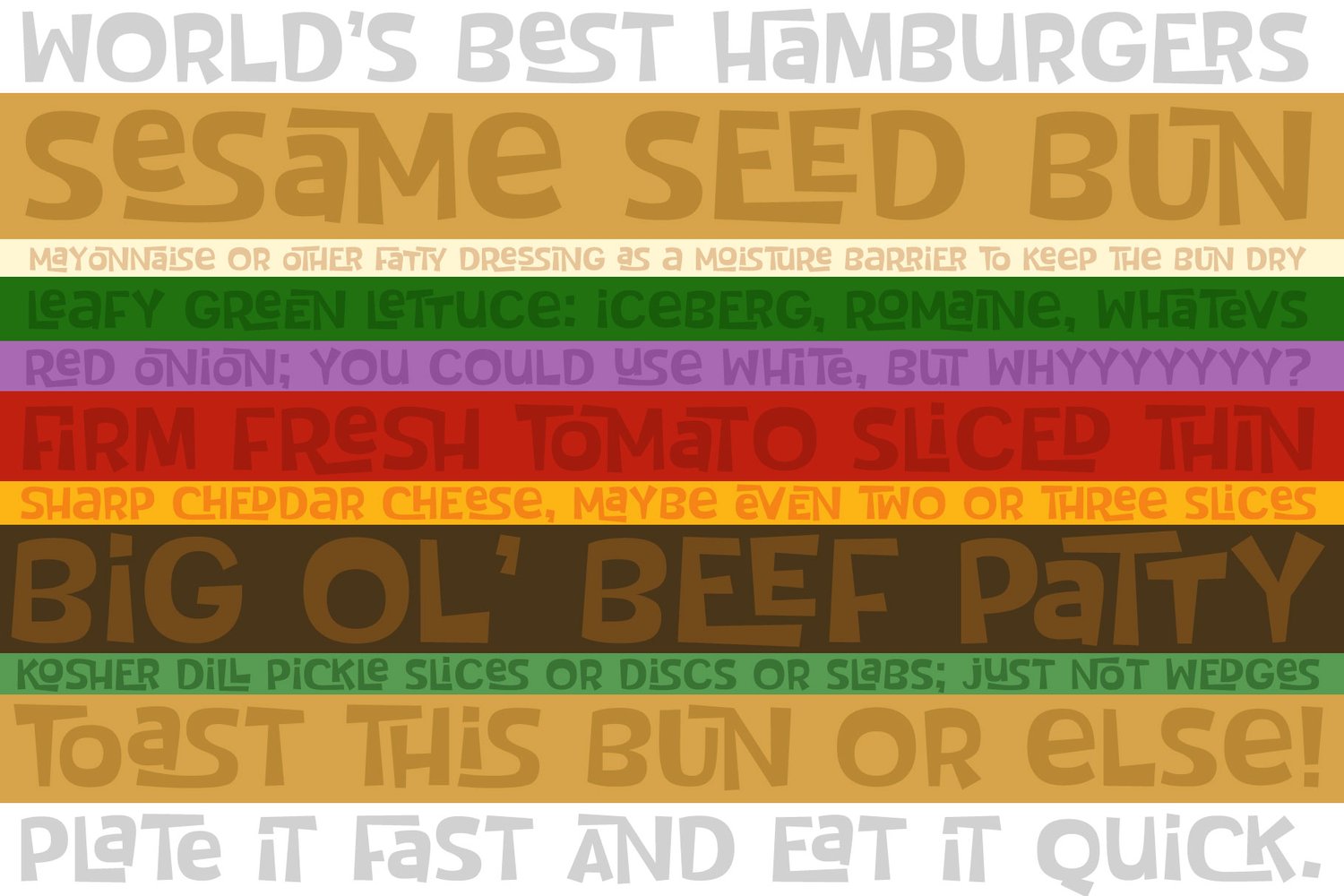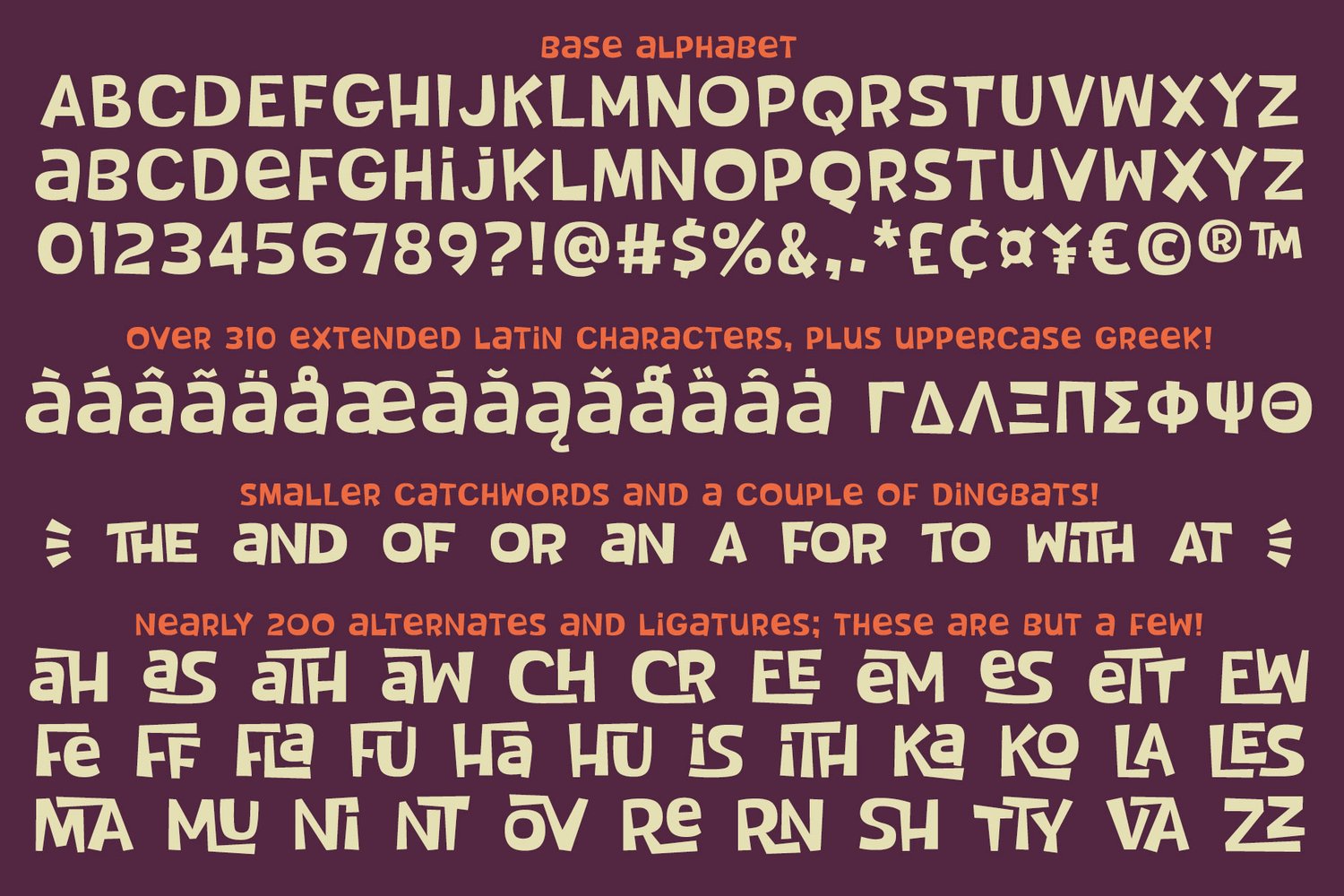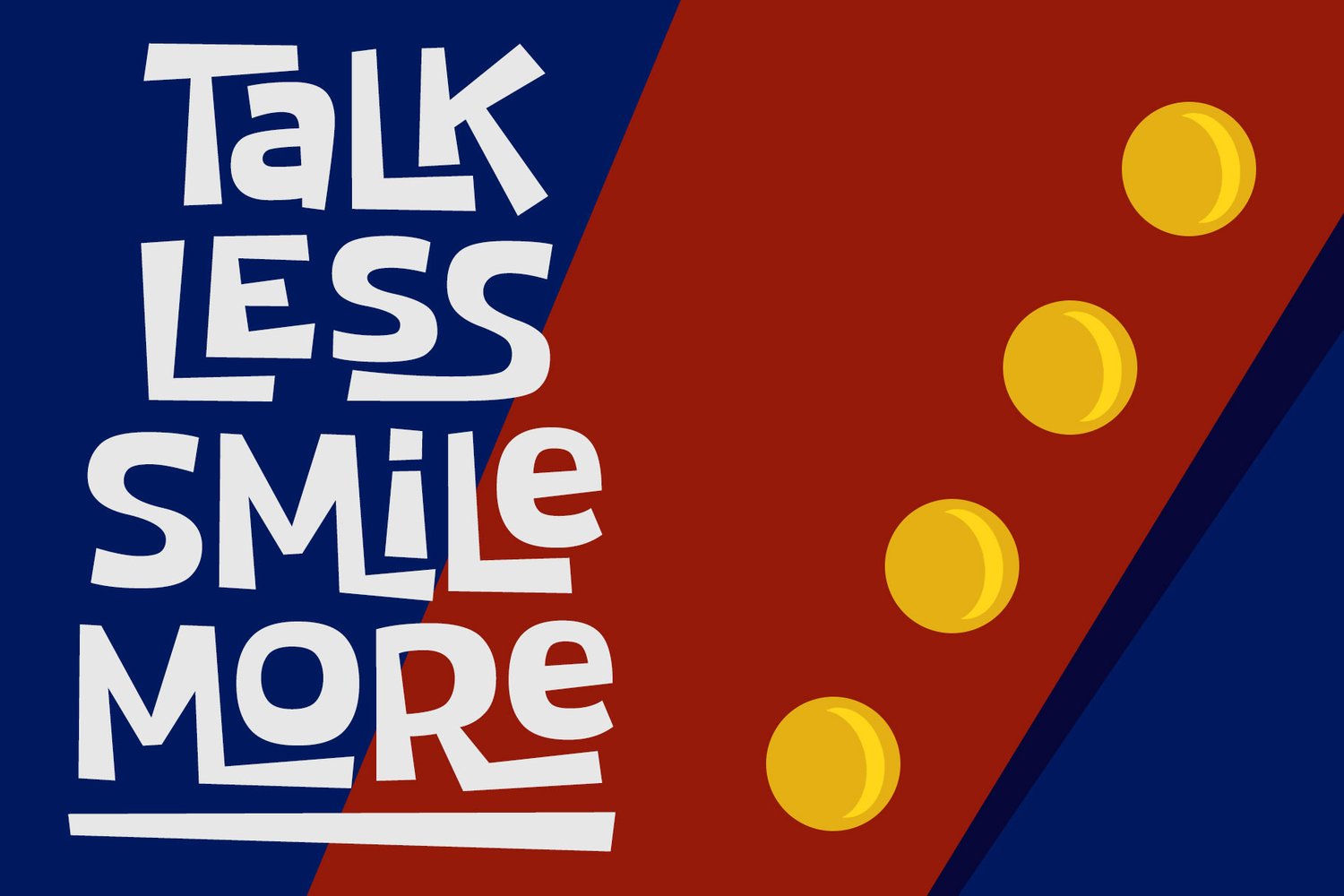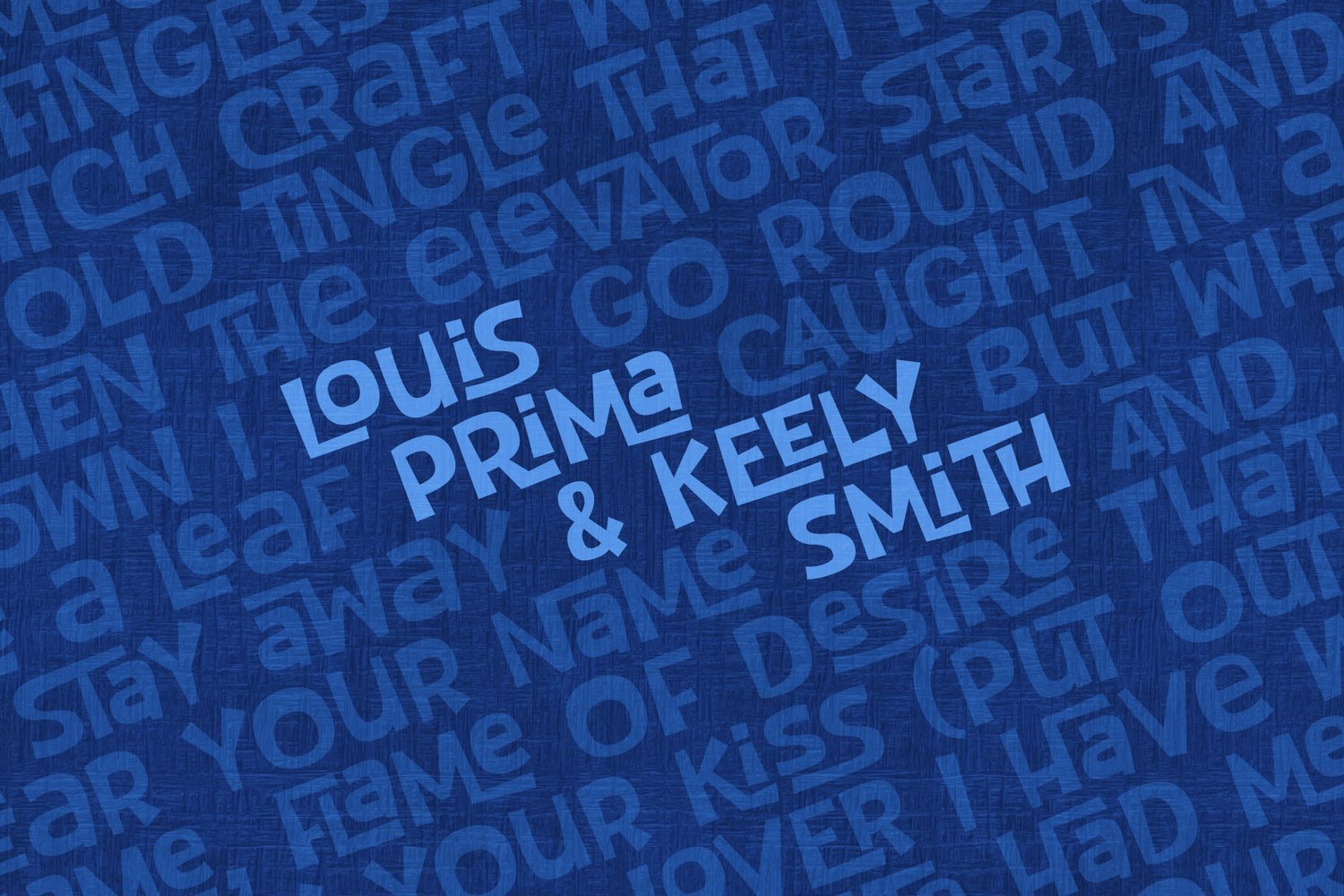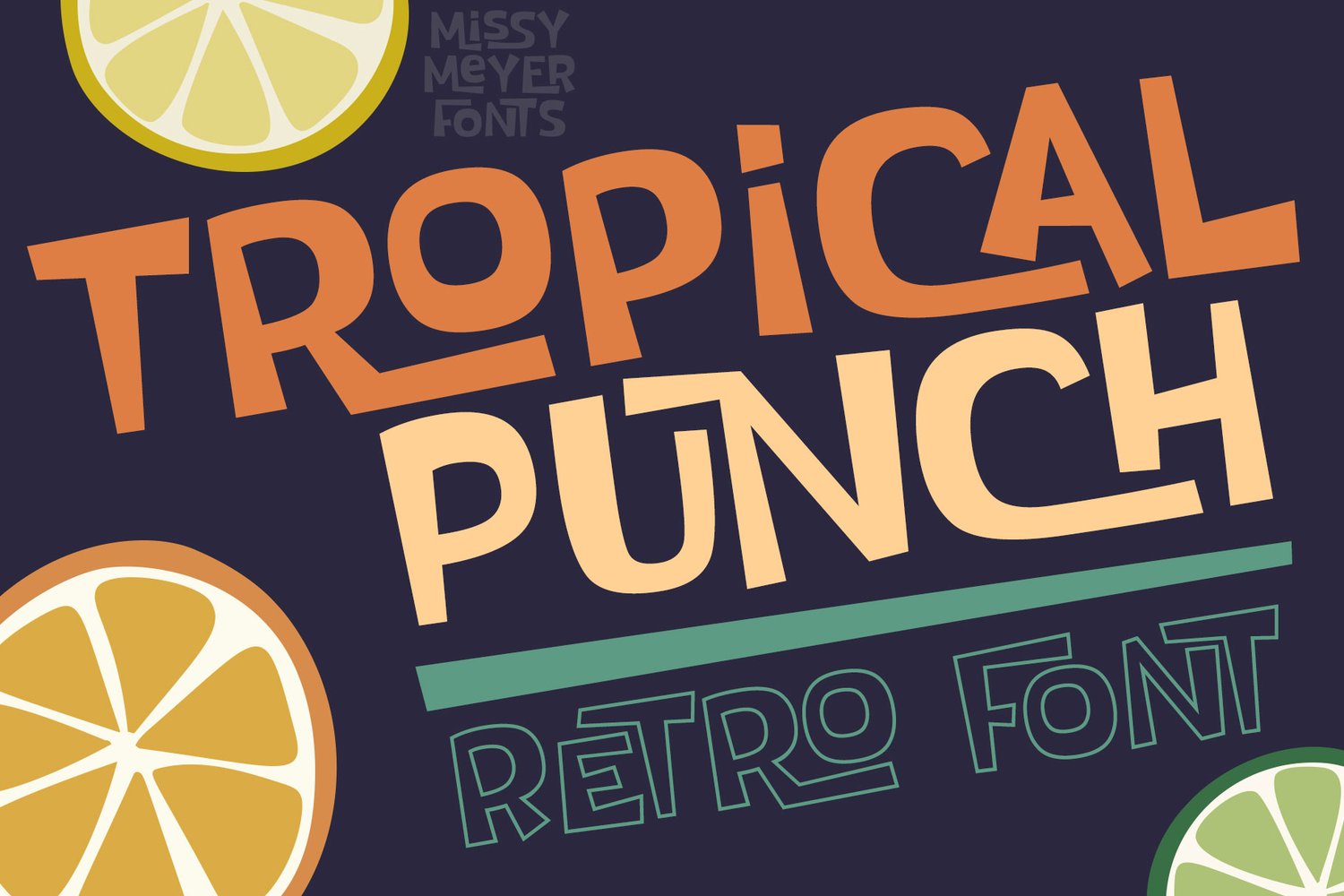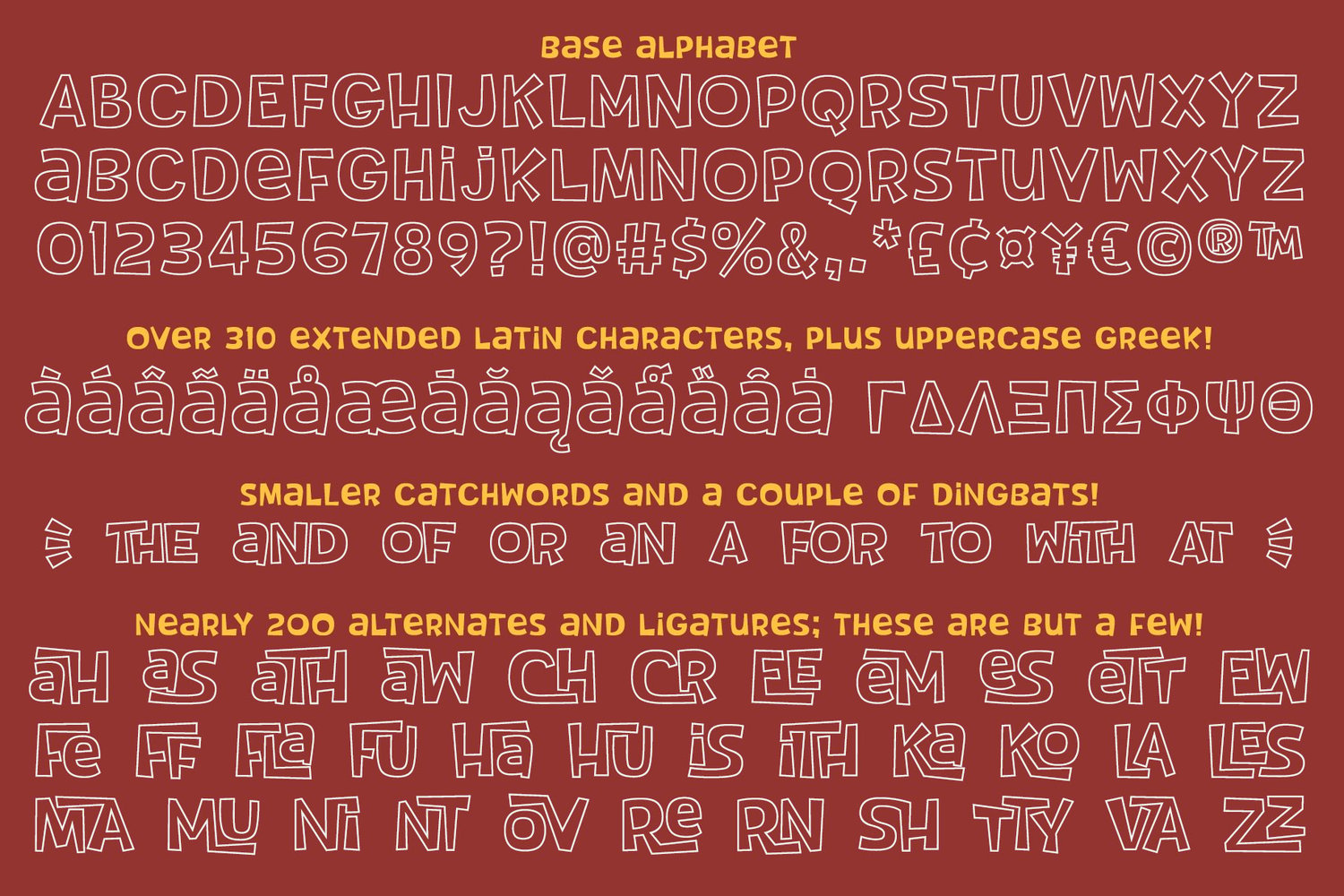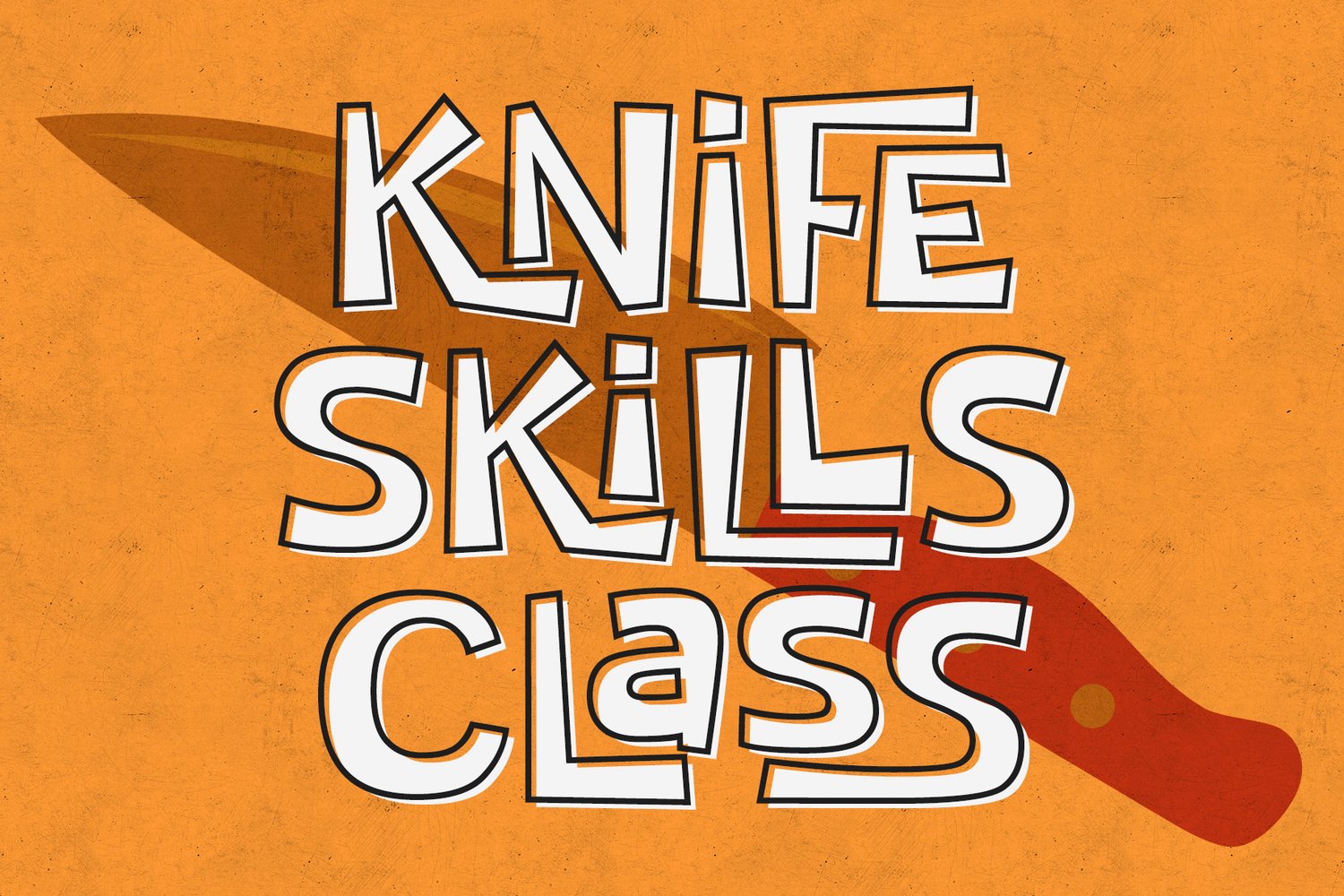
Tropical Punch
I am shocked to my very core that the name "Tropical Punch" hasn't been used for a font yet. What a delight, that my very first name choice is available, and I can grow my collection of fonts named after delicious food and drink!
Tropical Punch is a retro-tropical font with a ton of variety: I've included nearly 200 multi-letter ligatures with nesting letters, to add quirky and fun variety to all of your projects. There are also a few alternate vowels, plus a few dingbats to add jazzy pizzazz; and 10 smaller catchwords like THE, AND, WITH, and more!
I've also made an outline version--Tropical Punch Outline--which surrounds the solid letters beautifully, so you have even more options!
Of course, both versions have my usual 300+ extended Latin characters for language support. And I've included a set of uppercase Greek letters as well!